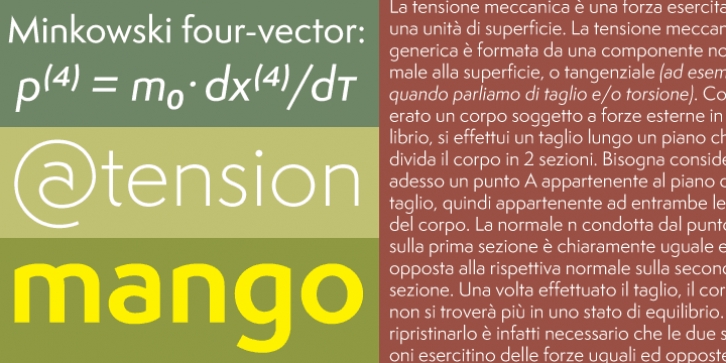
Semplicita Pro is a sans serif font family. This typeface has ten styles and was published by Canada Type.
Semplicita Pro is a new sans serif design that effortlessly straddles the tri-cornered divide between the geometrical, humanist, and gothic sans serifs. We started by reappraising Semplicit